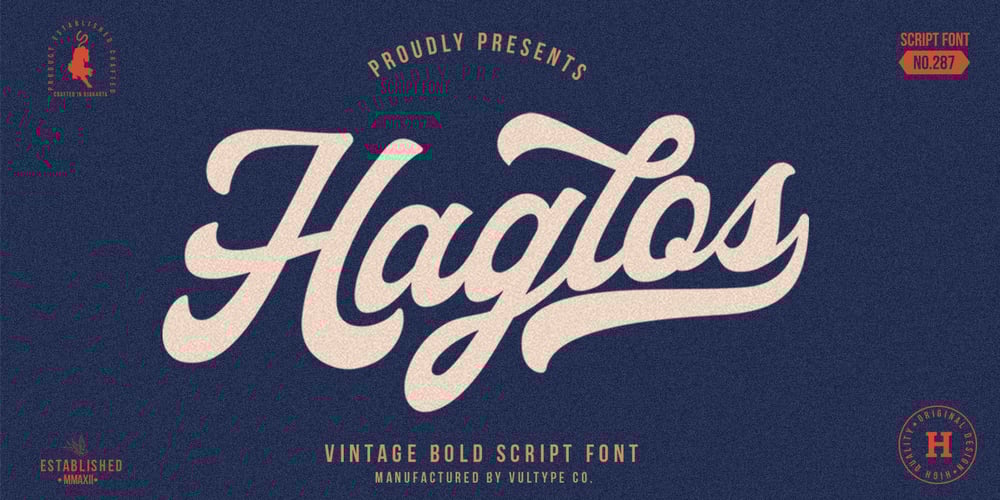
Haglos
Haglos font
Haglos Font Family was designed by Candra Hamdani and published by Vultype Co. Haglos contains 1 styles and family package options. Haglos Script was inspired by Modern Vintage & Retro style in combination with old American traditional style. It’s bold and has amazing swashes. In my examples I show how this script can be used. It’s very well suited for logotypes, product labels, food flyer, and others.